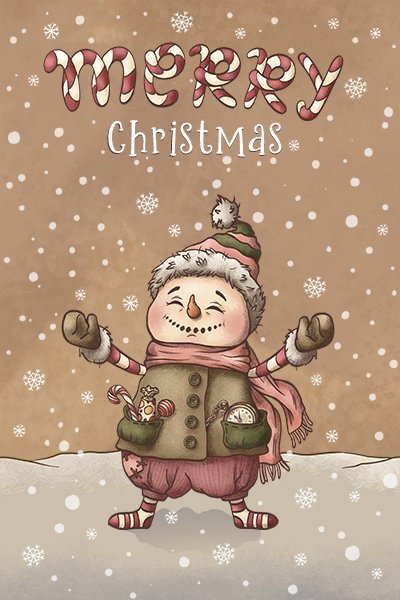
Gingers Slab Serif Font
GingersSlab
Gingers is a sweet and curly slab serif font. It is perfect for the holiday season or any time of the year when you need to add a little whimsy and charm.
Denise Chandler